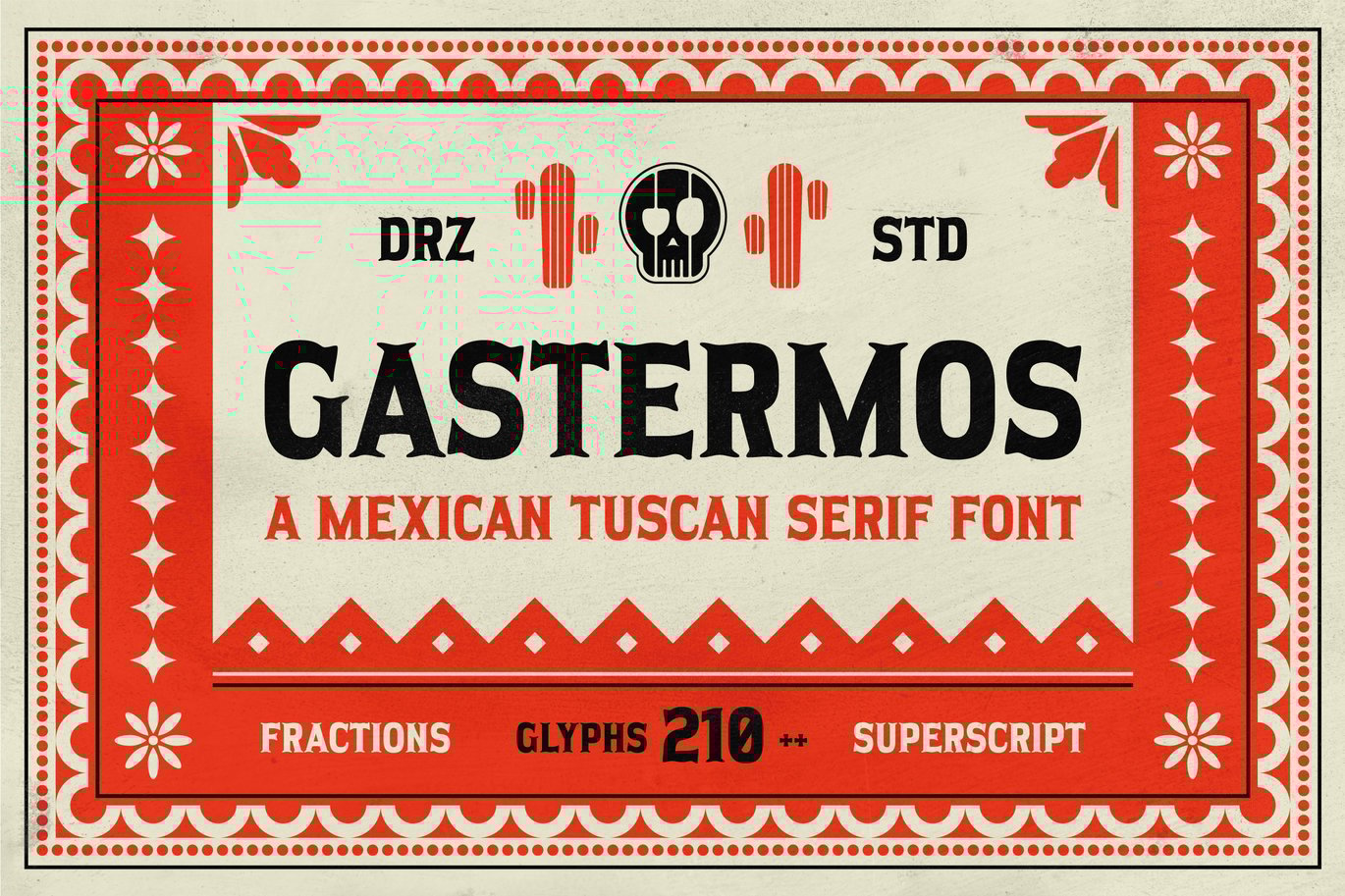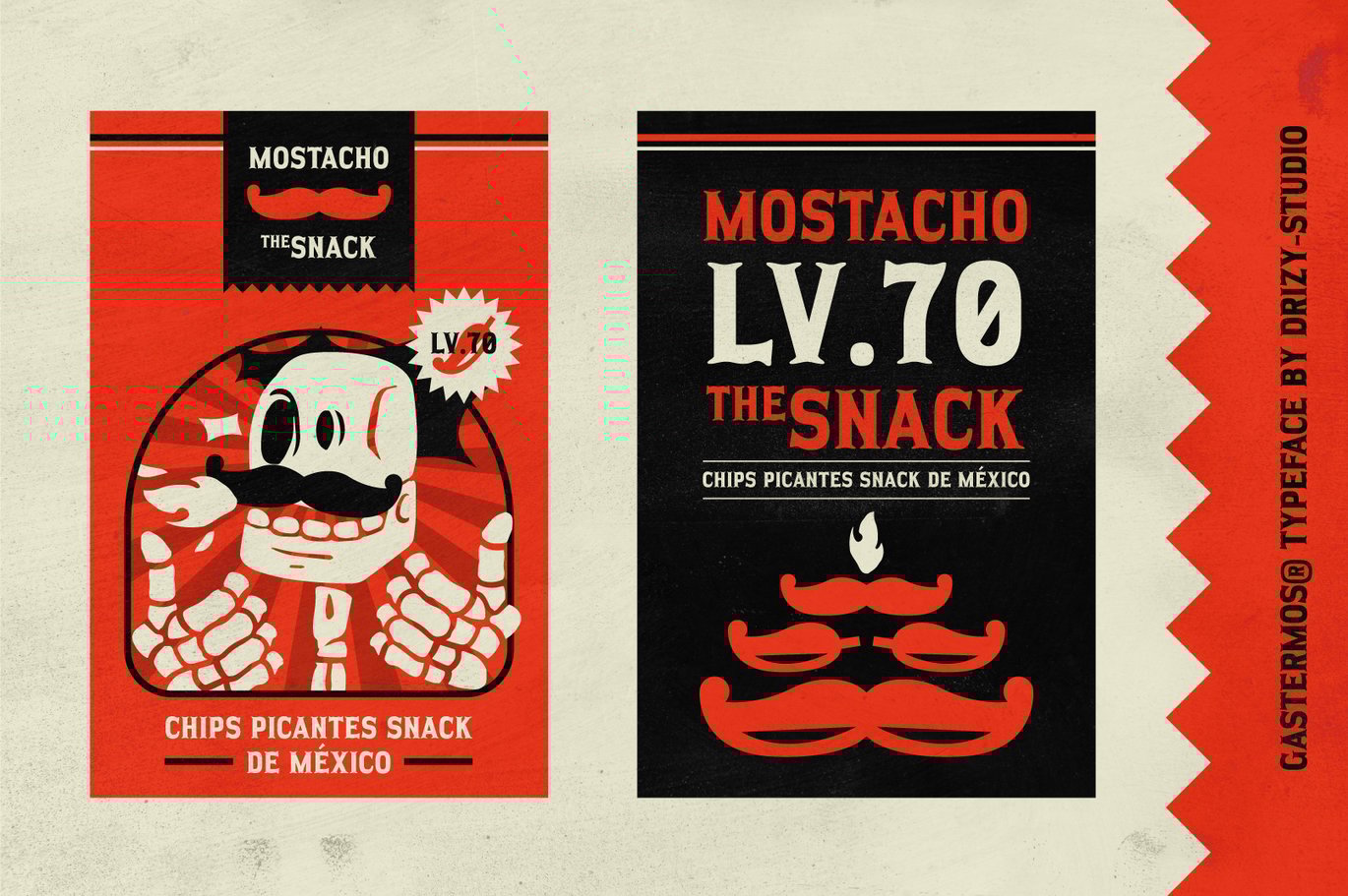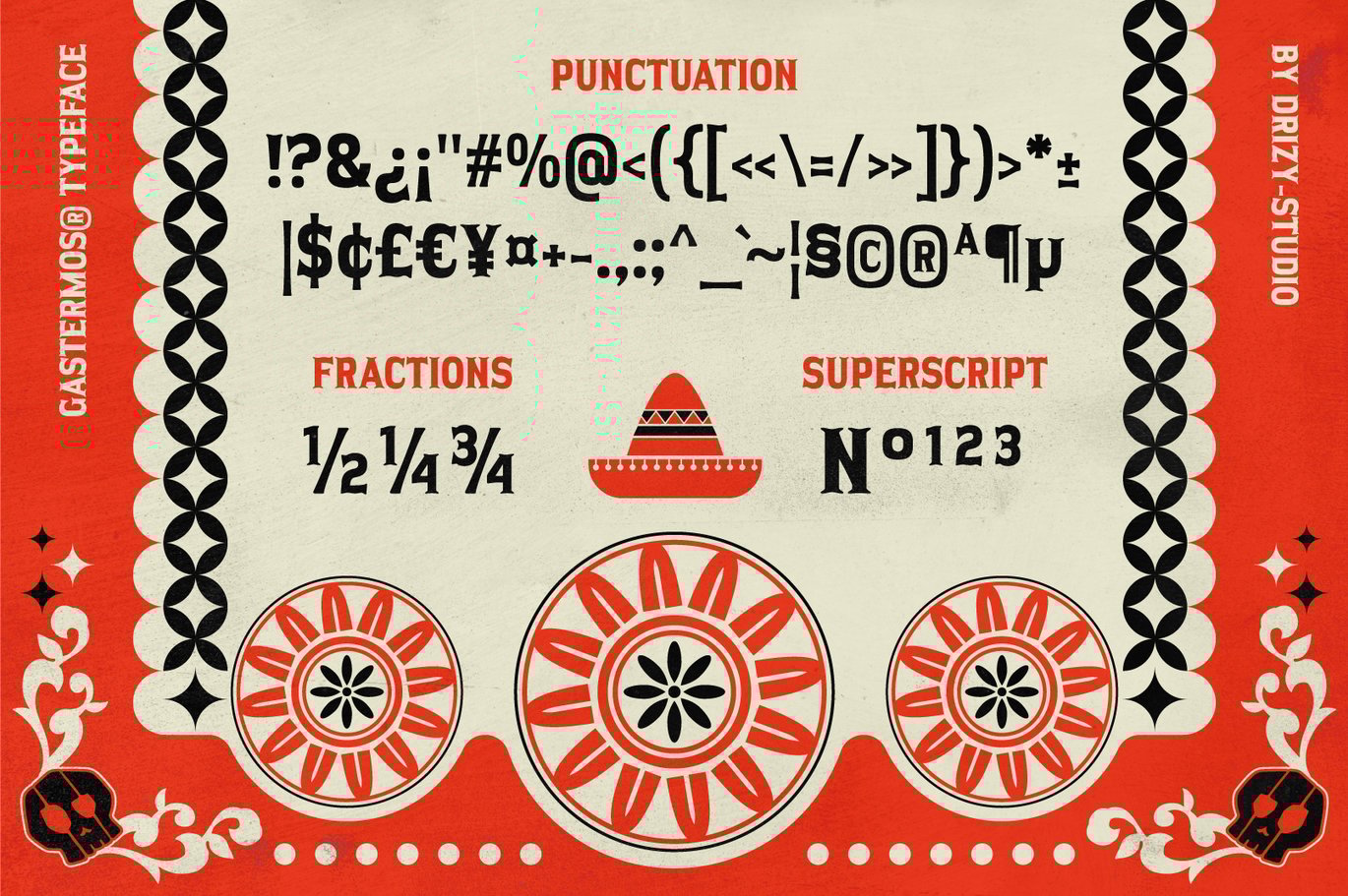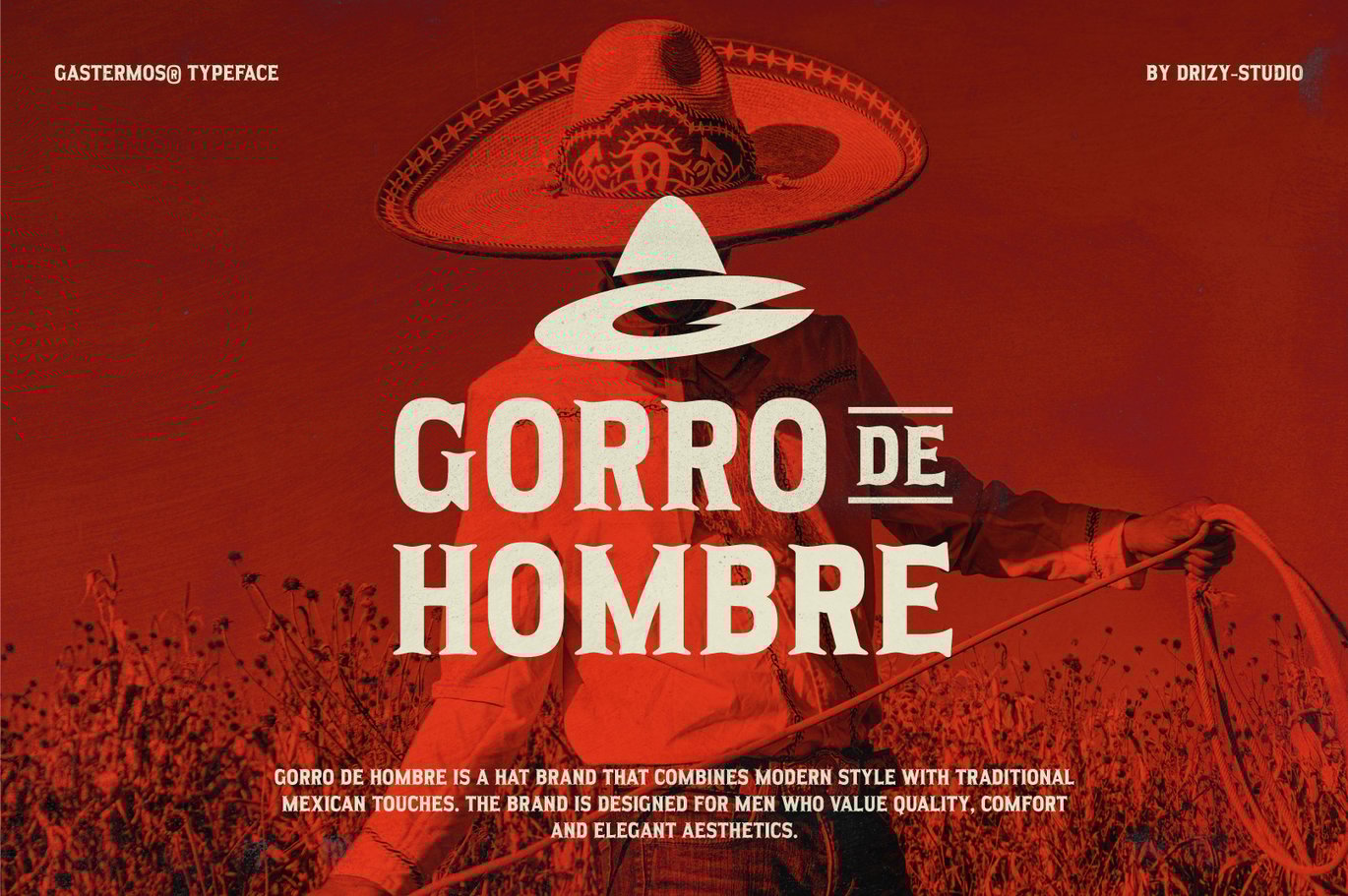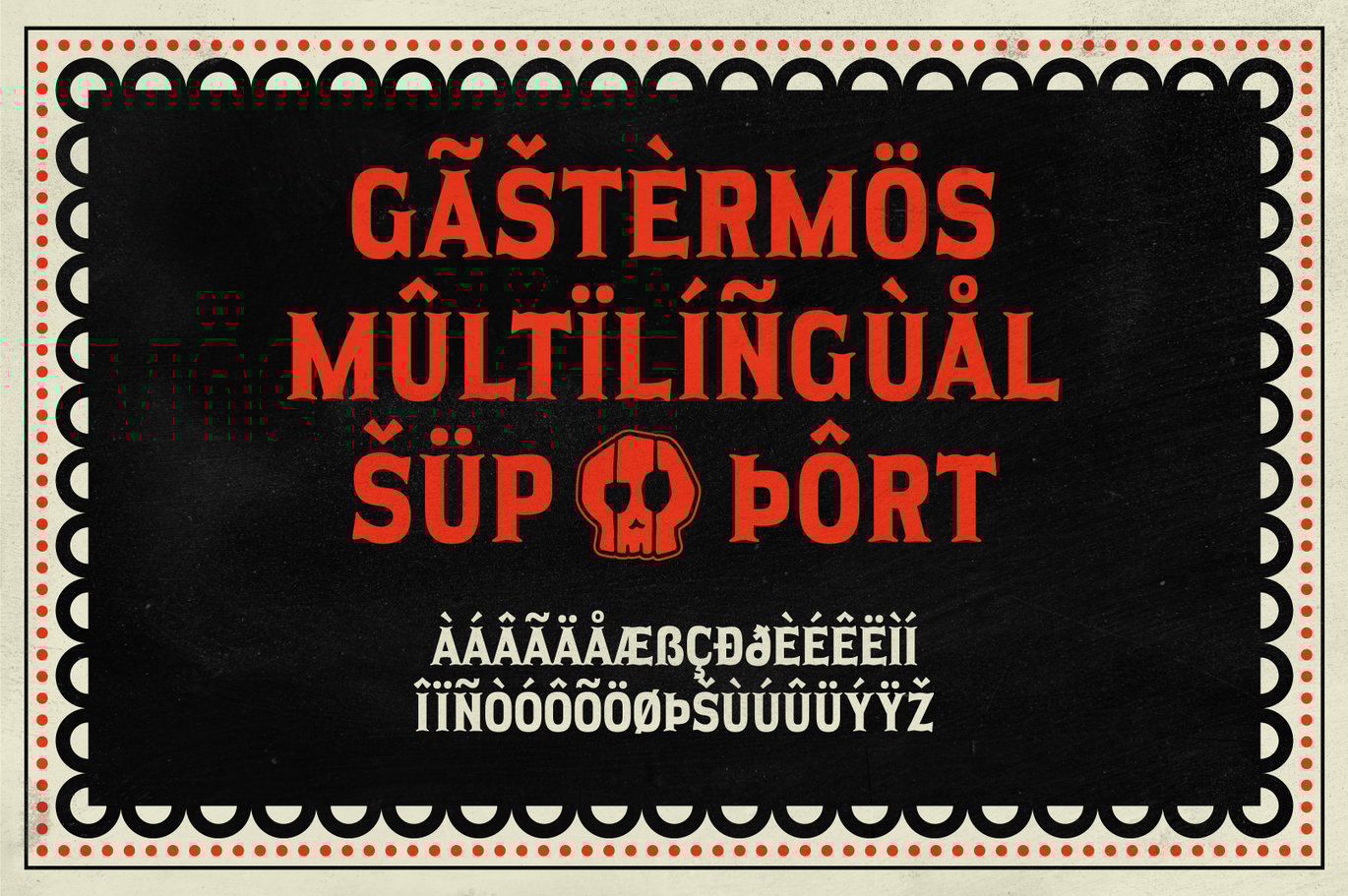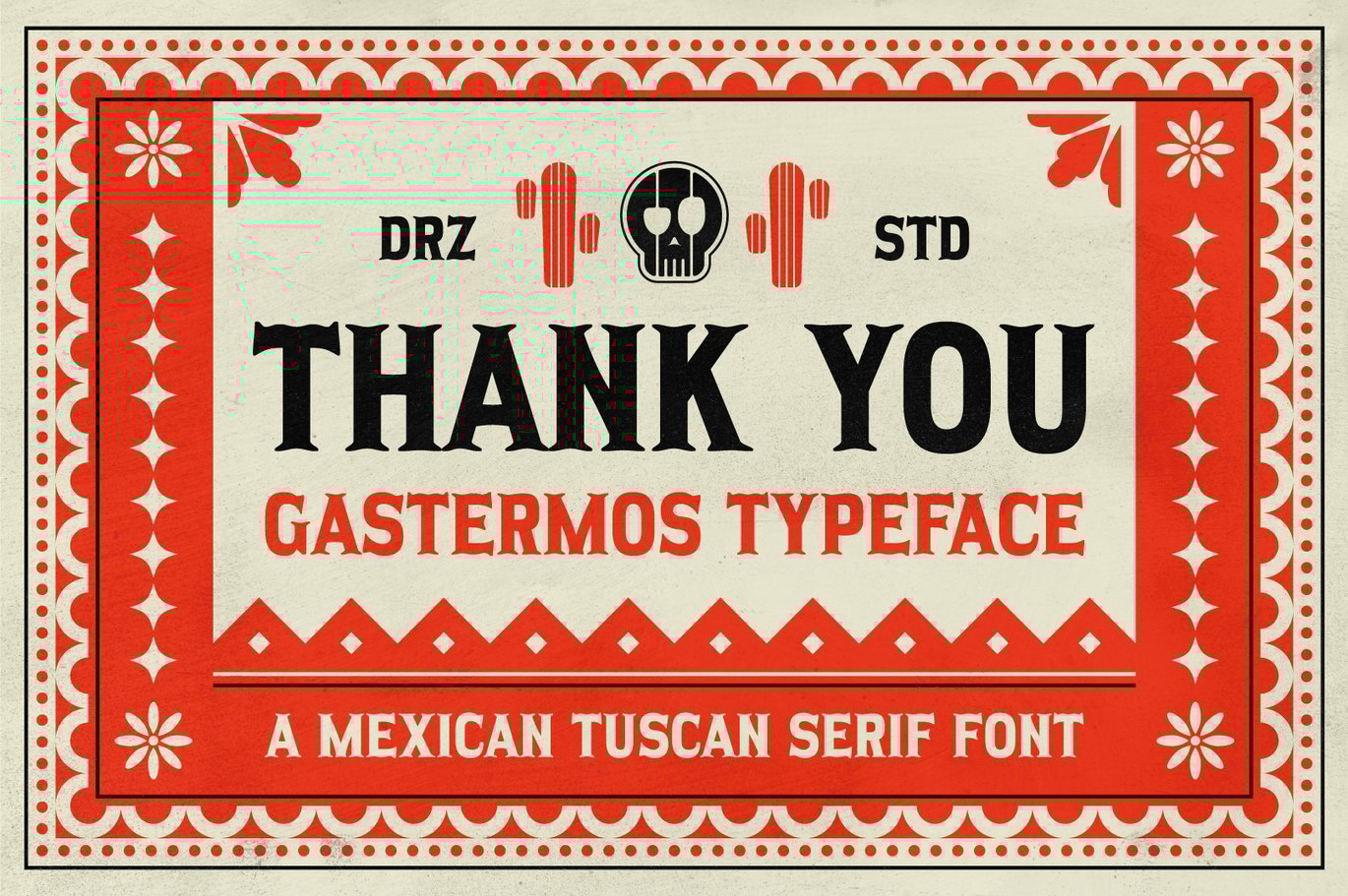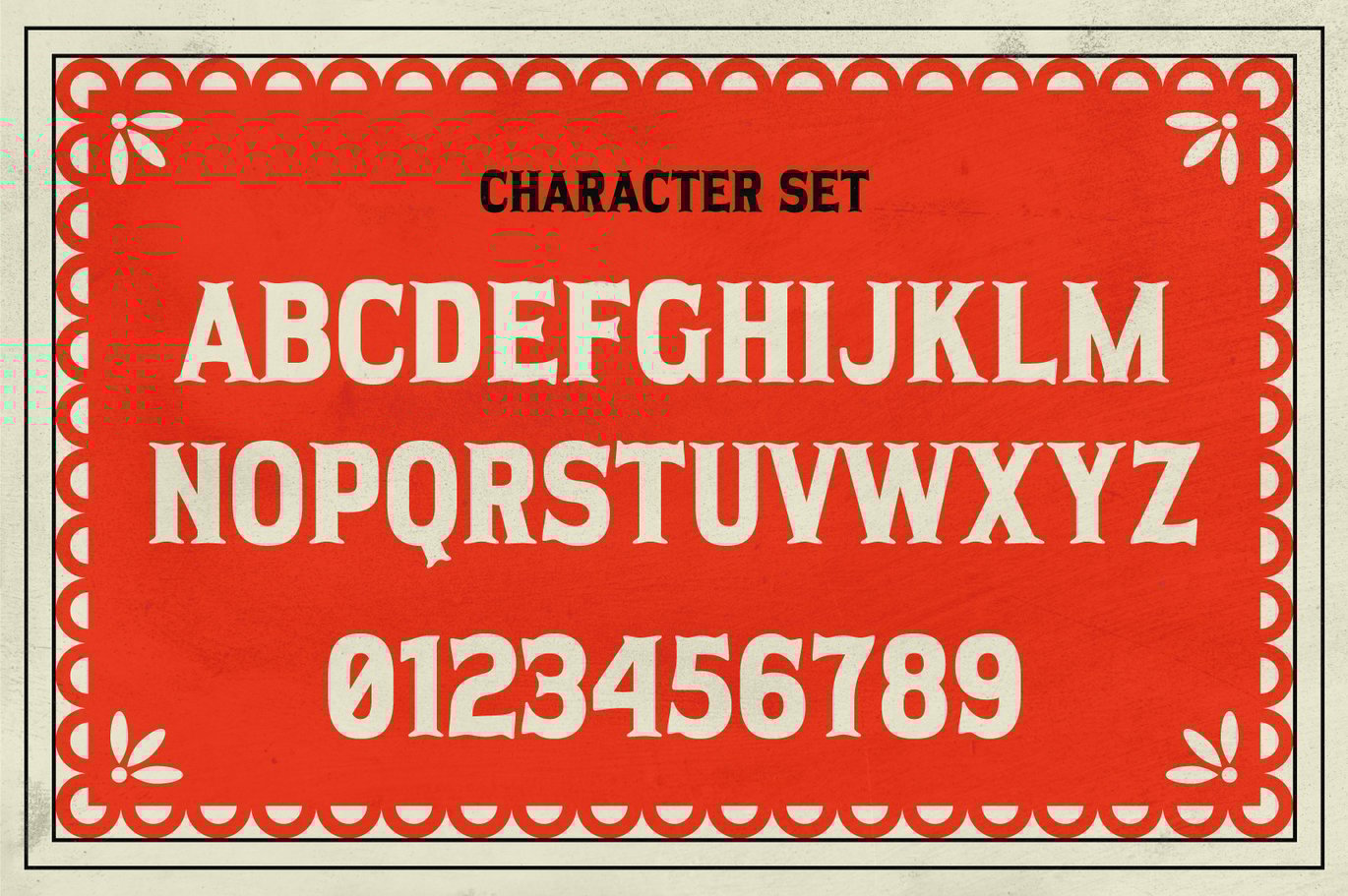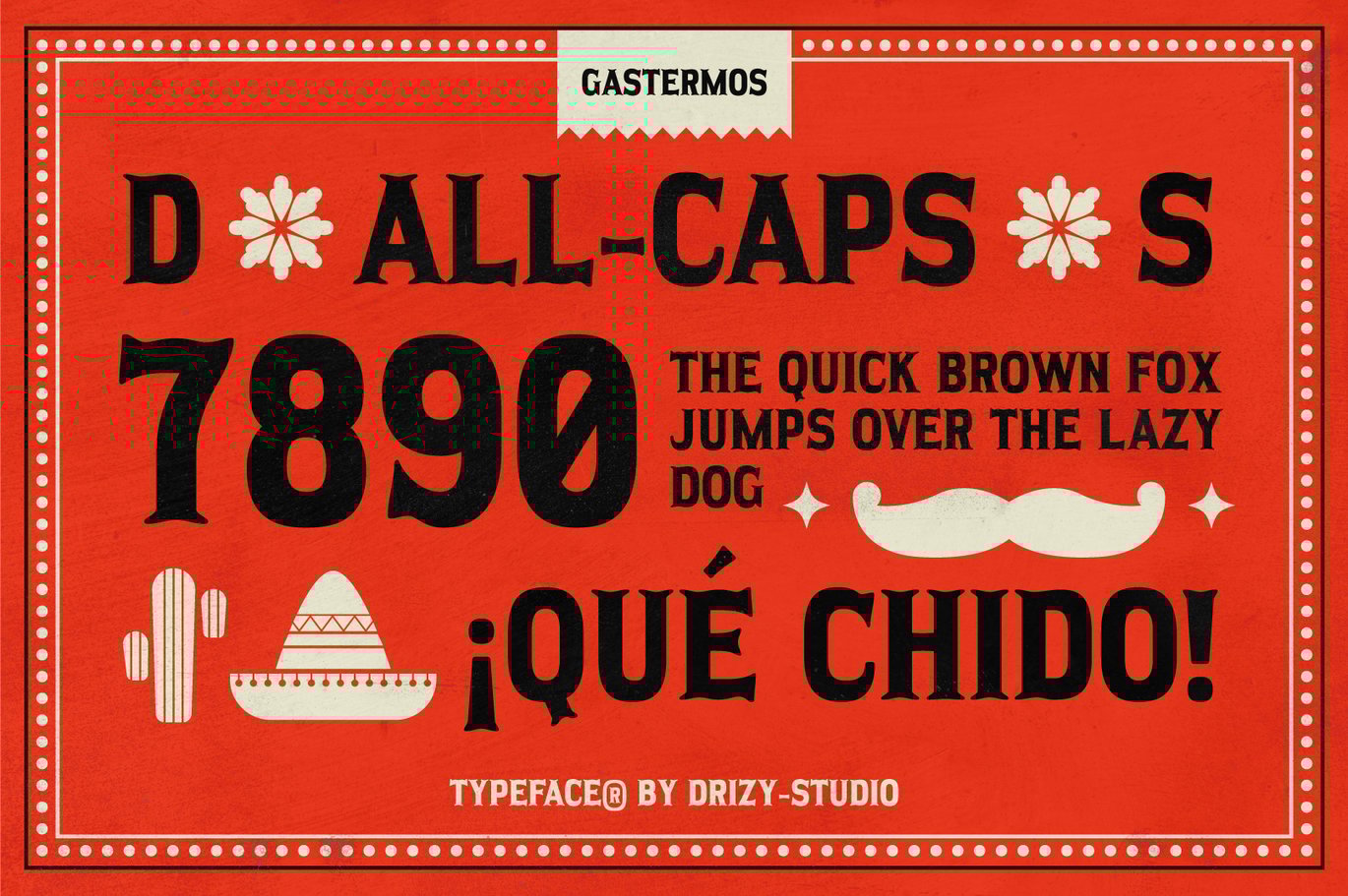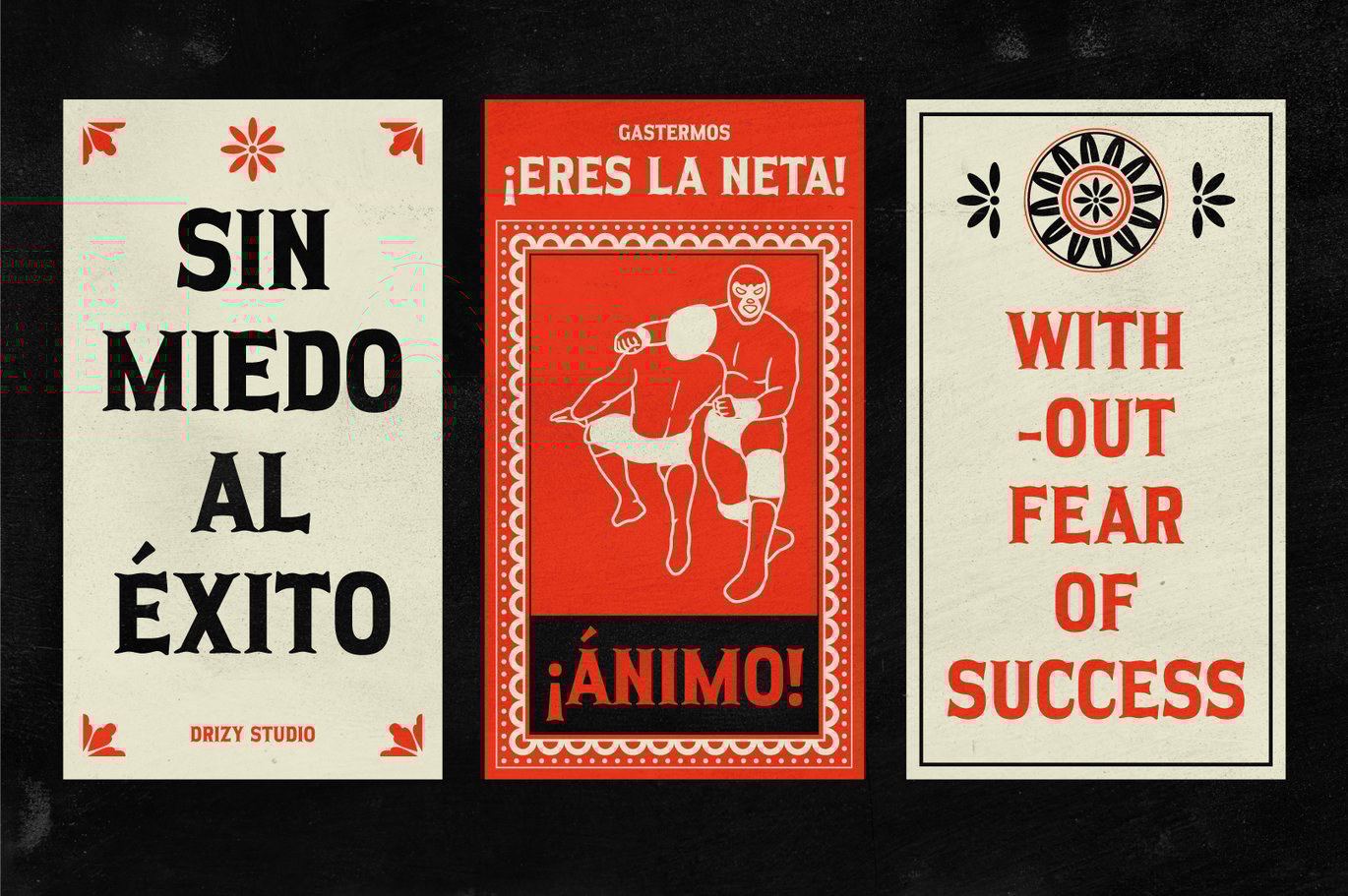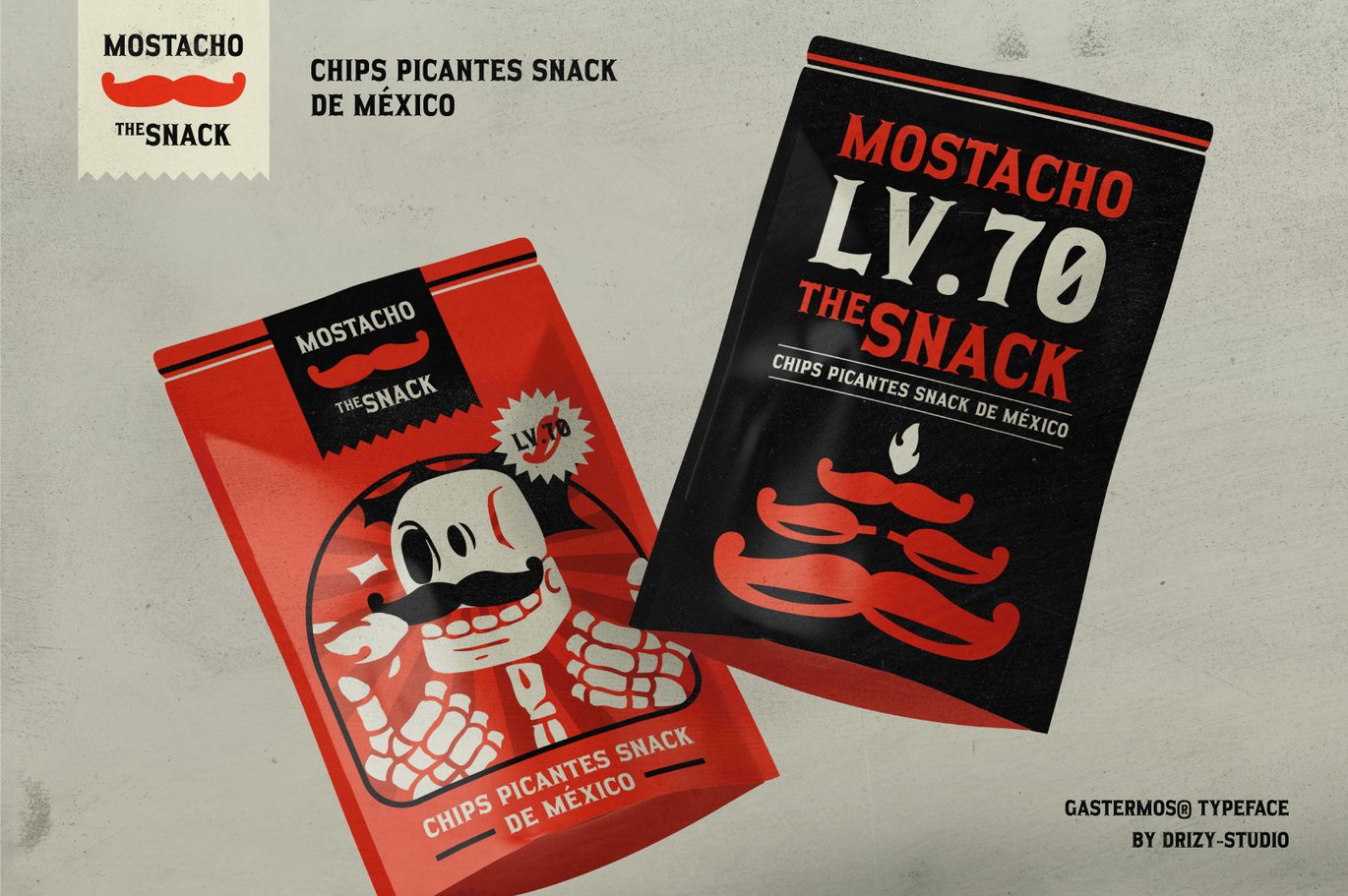
Gastermos – Mexican Tuscan Serif Font
Gastermos is inspired typeface that blends traditional vintage-Mexican design elements with the classic elegance of Tuscan serif styles. This unique font captures the rich cultural heritage and intricate artistry of Mexican aesthetics, making it ideal for projects that seek to convey a sense of history, authenticity, and decorative flair.
Character Set (All Caps)